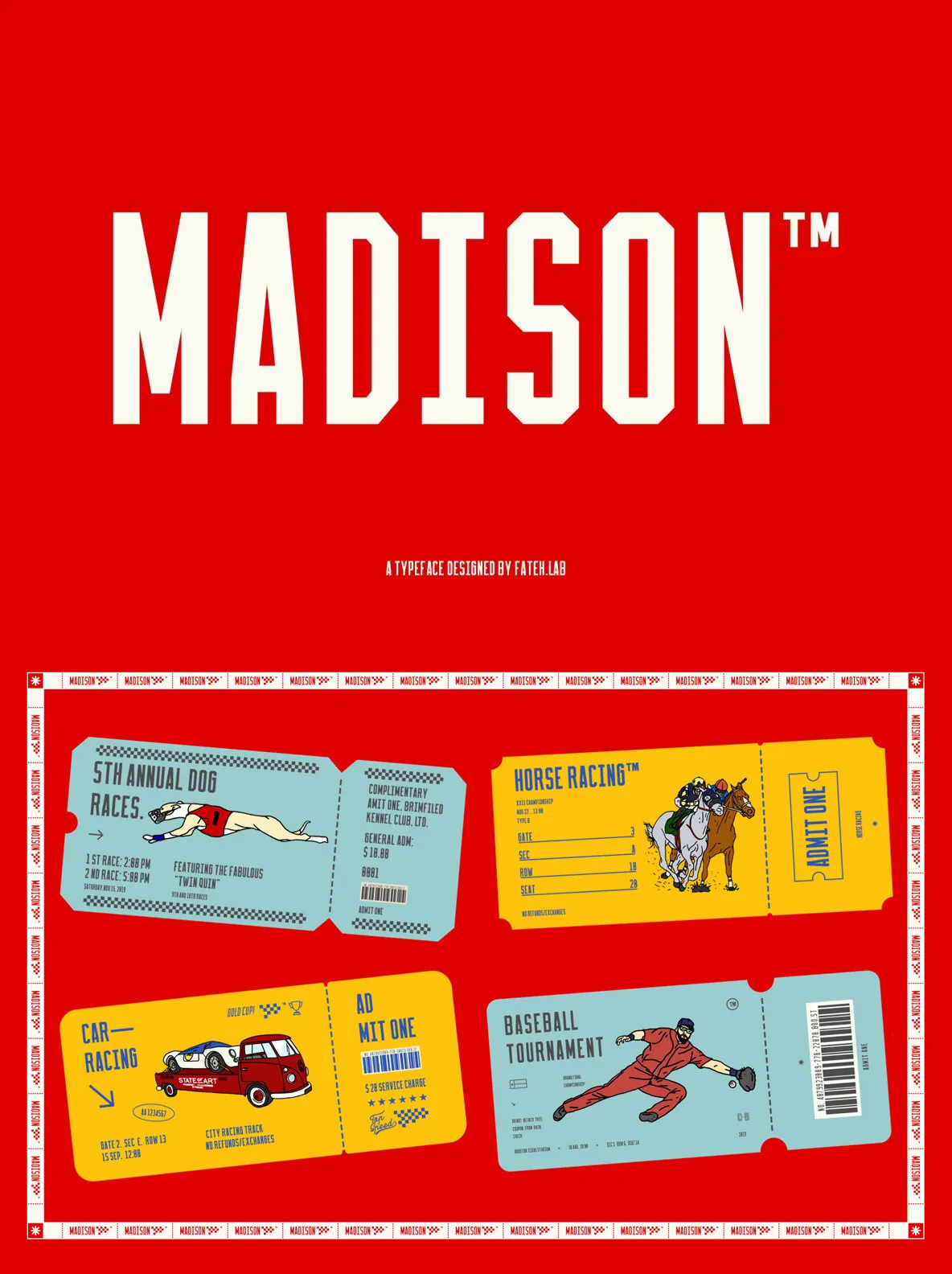
Madison — Bold Sports Energy, Built In
A bold, powerful, sporty font designed for high-impact work. Use it for sports logos, branding, posters, and clothing designs when you need a confident look that reads fast and holds attention. It also suits editorial and web titles, where strong letterforms help headlines stay clear across print and screen.
Designed by Fateh.Lab, Madison also comes with detailed illustrations that add ready-made elements to your layout. These extras make it easier to build a complete visual system around the type, whether you are shaping a racing-themed identity or adding graphic accents to campaign assets.